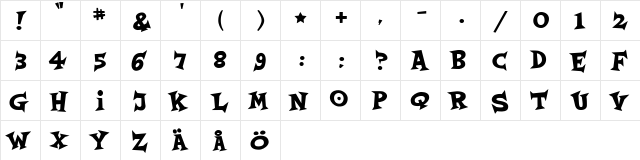
Bandelero Regular
Design Context for Bandelero Typeface
Bandelero is a composed and adaptable typeface that performs quietly and consistently across a wide range of design contexts.